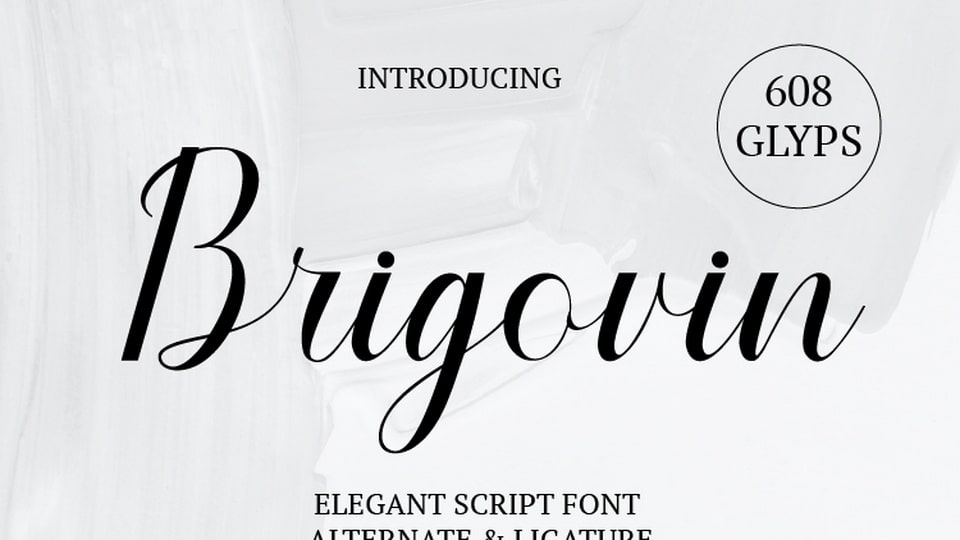
Feb 3, 2025Script & HandwrittenBrigovin Font Brigovin is a modern handwritten font with an elegant twist. It is the best choice for creating eye catching logos, branding and quotes. Font DetailsDesigned by: Rvandtype StudioWebsiteLicense: Free for commercial use Download Brigovin FontFile size: 157.80 KBCreated: February 16, 2025Updated: February 16, 2025 Download Explore similar fonts Aaksaraan Rania Font Arthur Meridian Font Rhetorical Flourish Font Gelato Vanilla Font Renitta Font Bellina Font # Calligraphy# Hand-drawn# Handwriting# Pretty More fonts by Rvandtype StudioFlowers Sunday FontClaseva FontGatheraz Display FontWinter House FontYograde FontHestqila FontNaqianotis FontSportfield Varsity Font